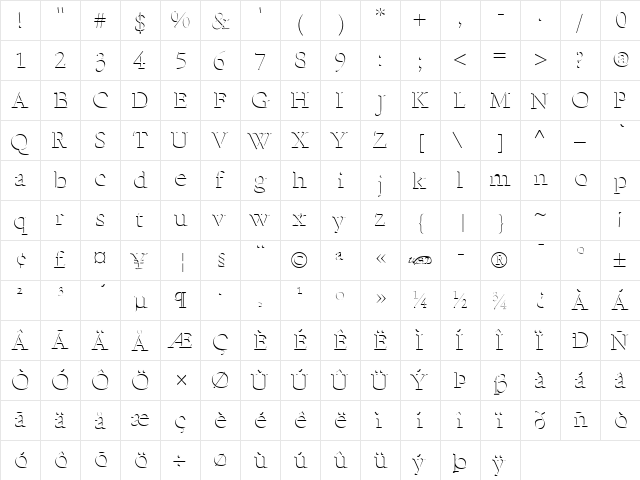
Relief Serif Regular
Design Context for Relief Serif Typeface
Relief Serif brings classic typographic sensibility to the table — its serifs and measured letterforms reflect centuries of print heritage.
Pro Tip: Set Relief Serif with slightly loose tracking in headlines to let each letterform's detail read clearly at display sizes.